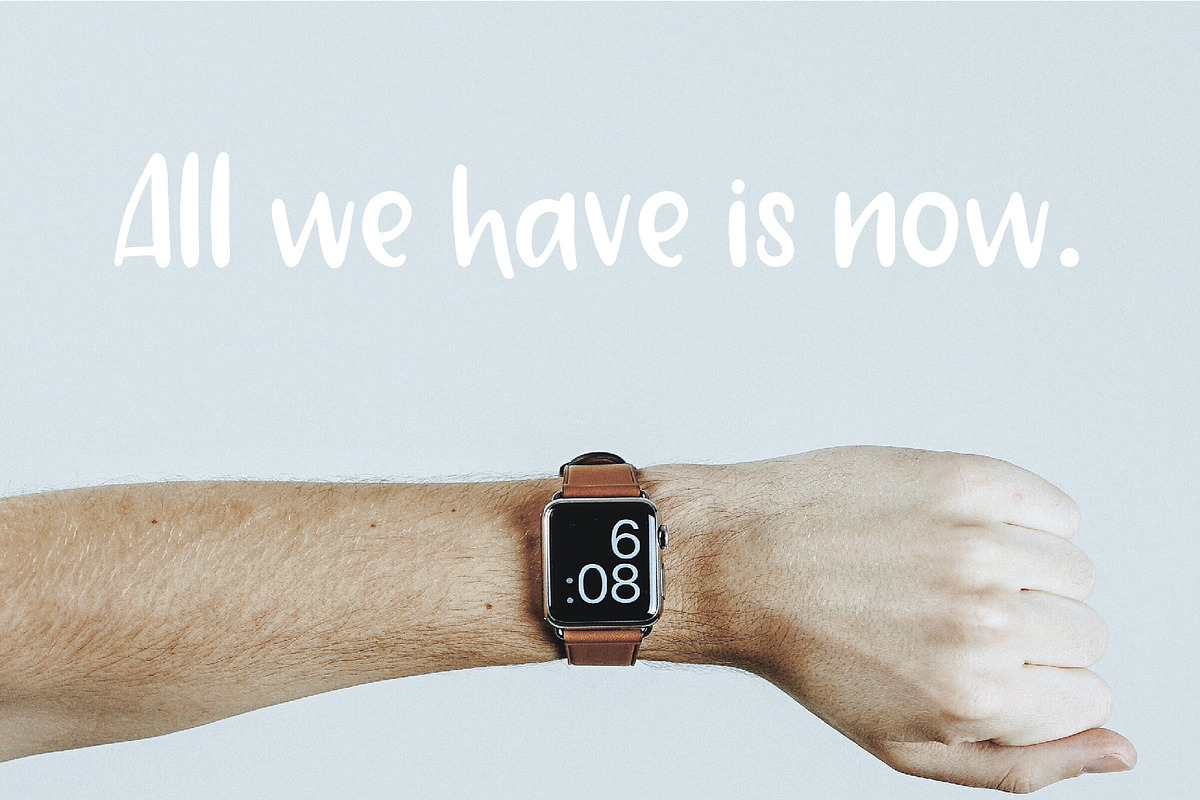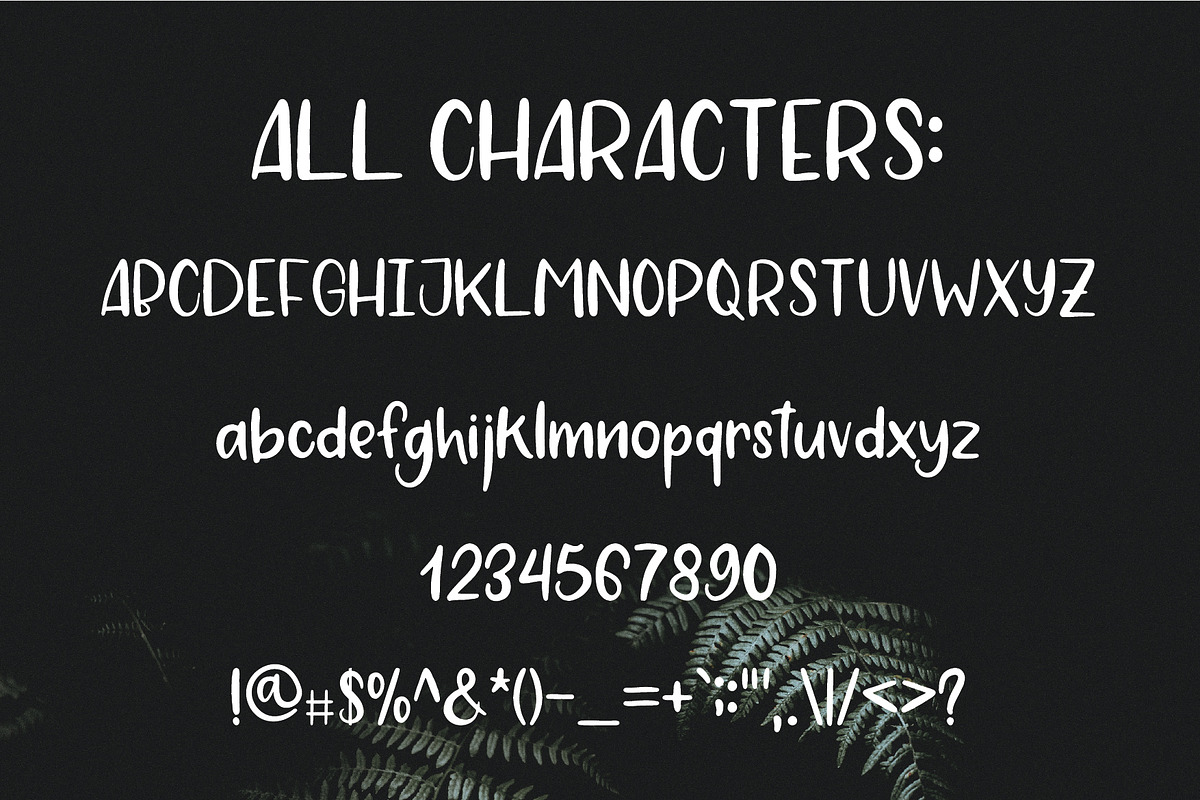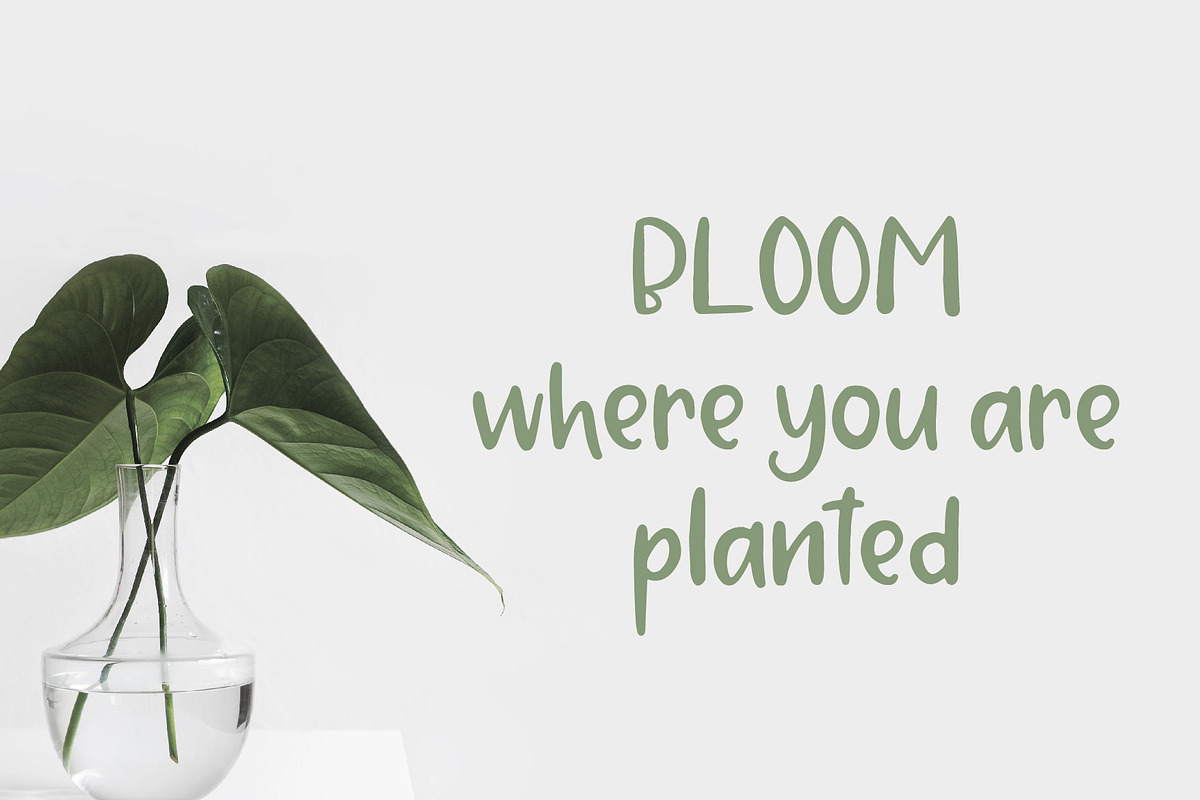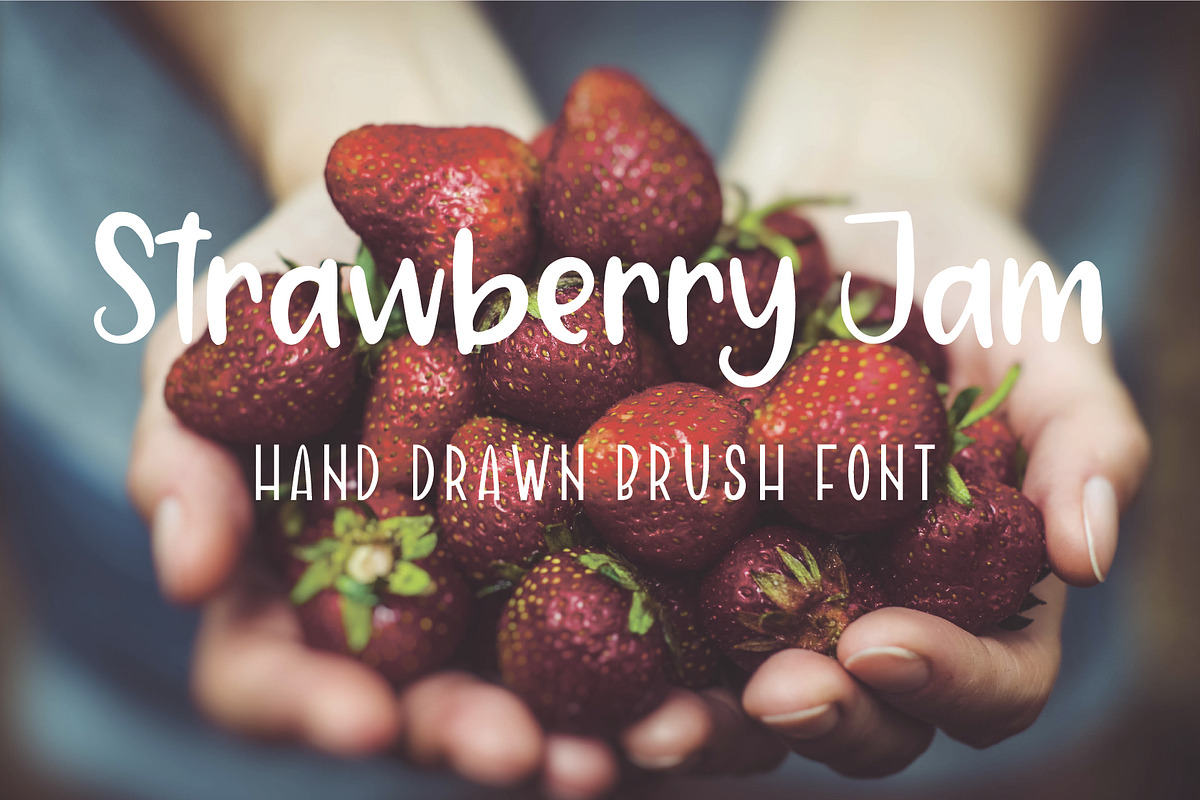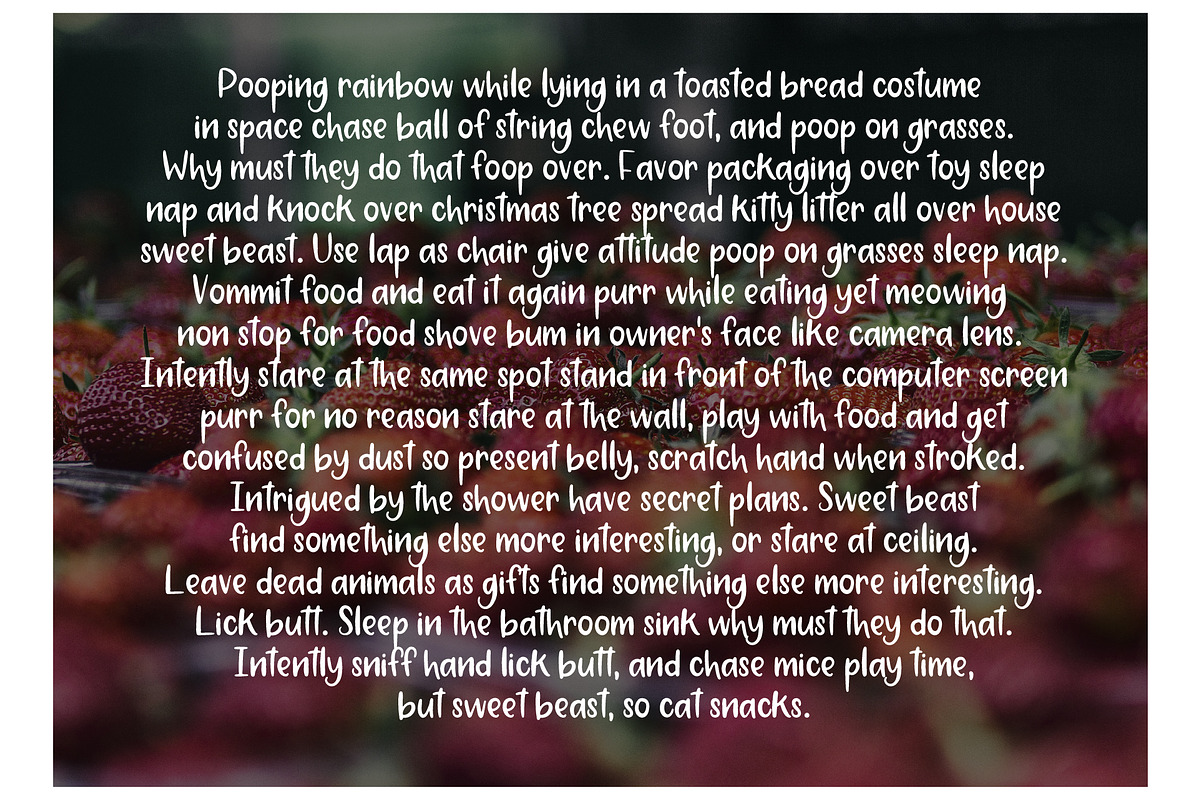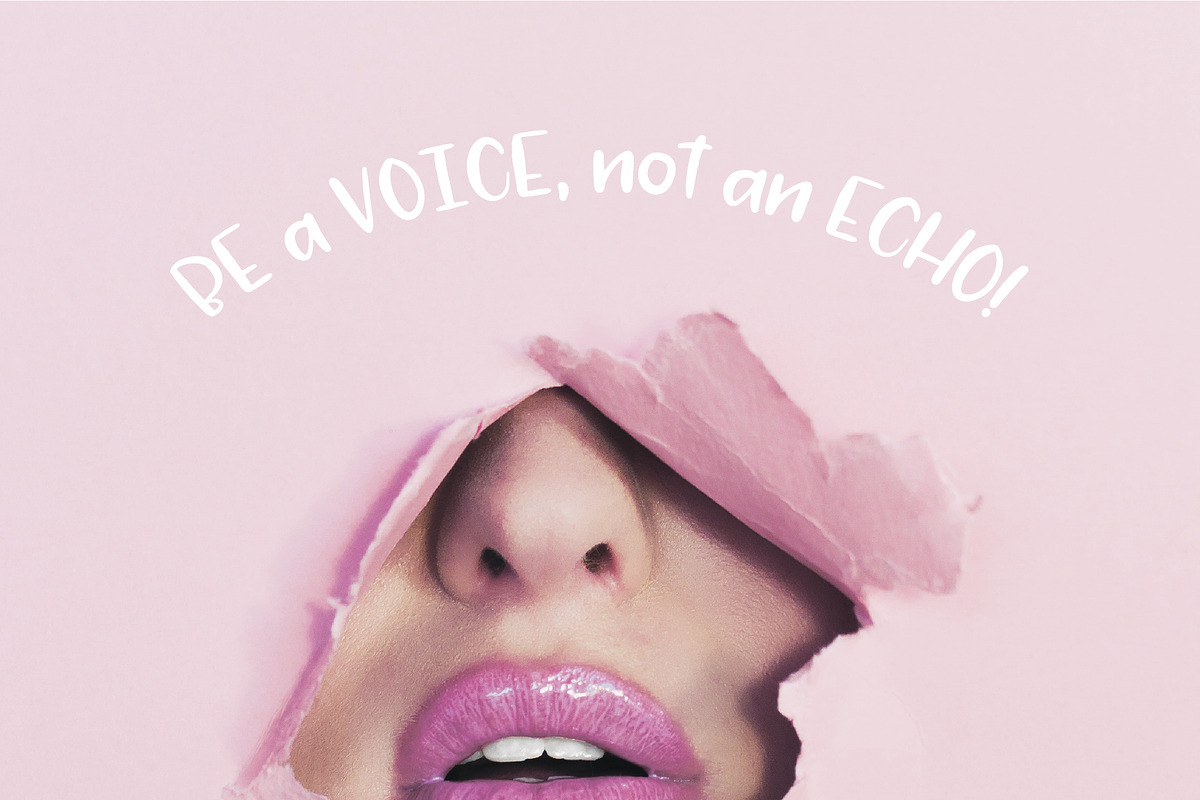
Strawberry Jam. Brush Font.
Cute and imperfect hand drawn Sans-Serif Brush Font.
Strawberry Jam. Brush Font. by Sentimental postman fits naturally into Branding, posters, packaging, typography.